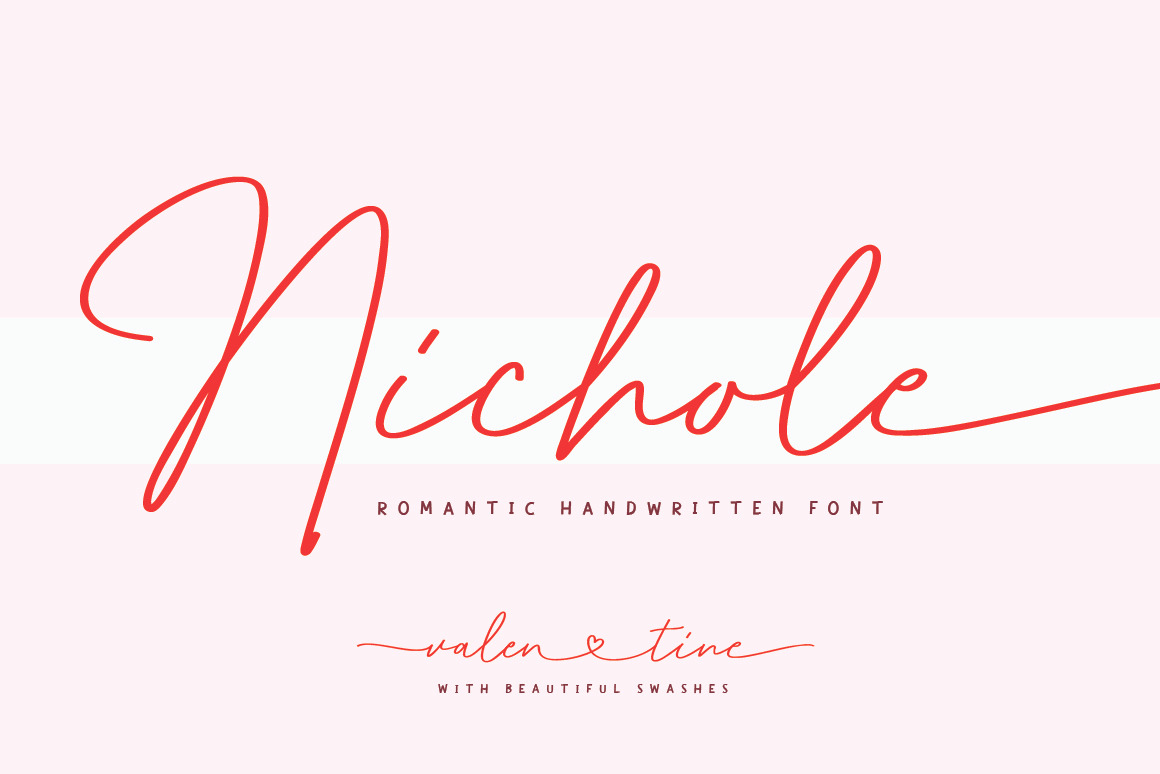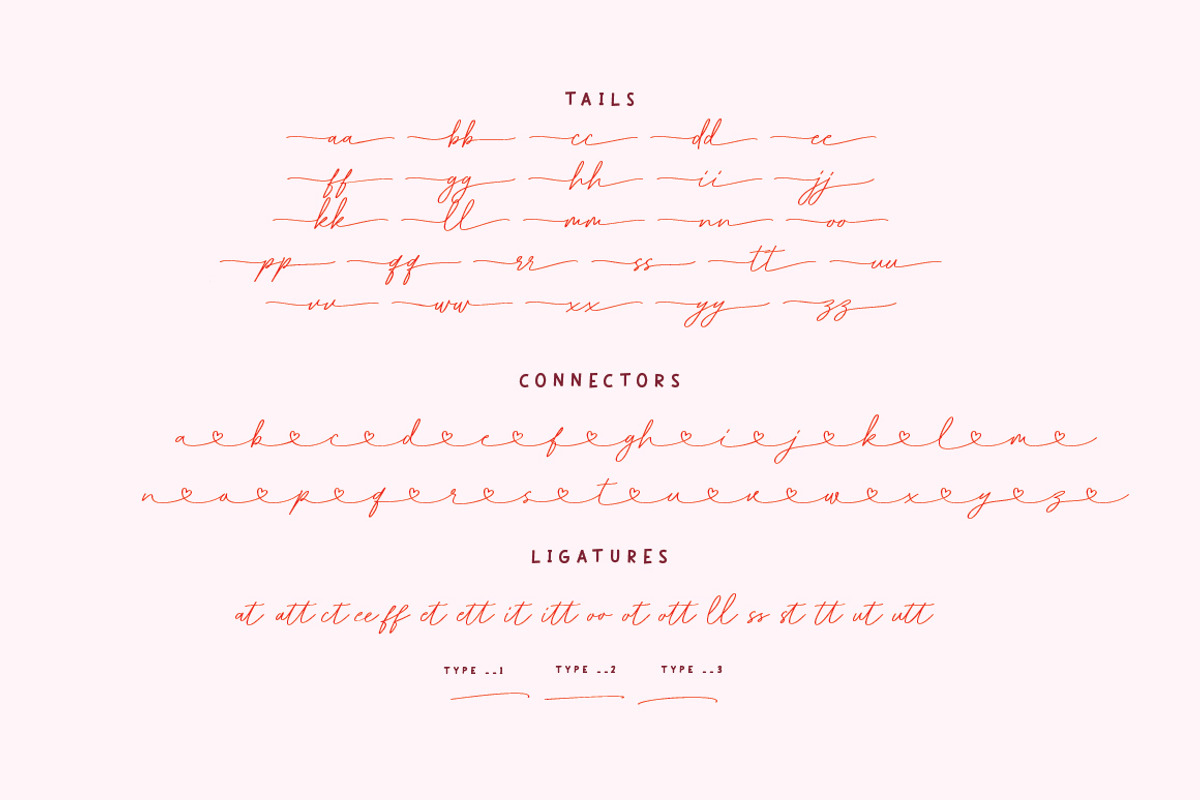
Nichole – Romantic Handwritten Font
Nichole is a romantic handwritten script font designed to capture elegance, intimacy, and natural flow. Inspired by modern calligraphy and timeless love letters, this font brings a soft yet confident character to your designs.
With smooth strokes, graceful swashes, and carefully crafted ligatures, Nichole is perfect for wedding invitations, couple branding, fashion logos, packaging, greeting cards, and editorial designs that need a personal and emotional touch.
Nichole includes uppercase and lowercase characters, numerals, punctuation, accented letters, stylistic alternates, connectors, tails, and beautiful ligatures, giving you full creative freedom without fighting your layout.
- Connectors & Tails
- Multilanguage